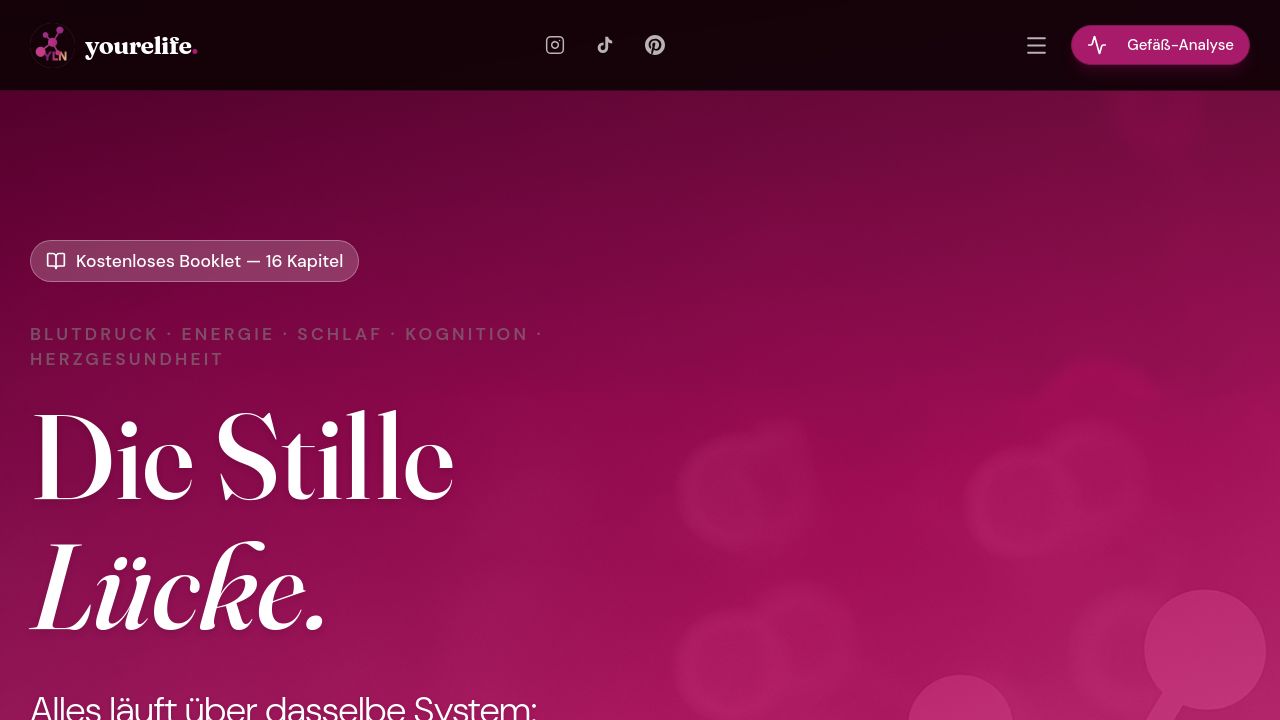
What fonts does Yourelife use?
At yourelife.de, a site dedicated to vascular health and micronutrients, the choice of Inter as their primary font family plays a crucial role in their visual identity. With weights ranging from 400 to 700, Inter conveys clarity and accessibility, making the information on blood pressure, energy, sleep, and heart health easy to digest. This font choice aligns perfectly with their mission to educate and empower their audience about the importance of vascular wellness.
Frequently asked questions about Yourelife.de's fonts
What fonts are used on yourelife.de?
The primary font used on yourelife.de is Inter, with custom weights of 400, 500, 600, and 700 to ensure versatility in their typography.
How does Inter compare to other sans-serif fonts?
Inter offers a unique blend of readability and modern style, making it a great alternative to other sans-serif fonts like Arial or Helvetica, especially in digital formats.
What styles and weights are available for Inter?
Inter comes with multiple styles and weights, including 400 (Regular), 500 (Medium), 600 (Semi-Bold), and 700 (Bold), allowing for flexible typographic hierarchy.